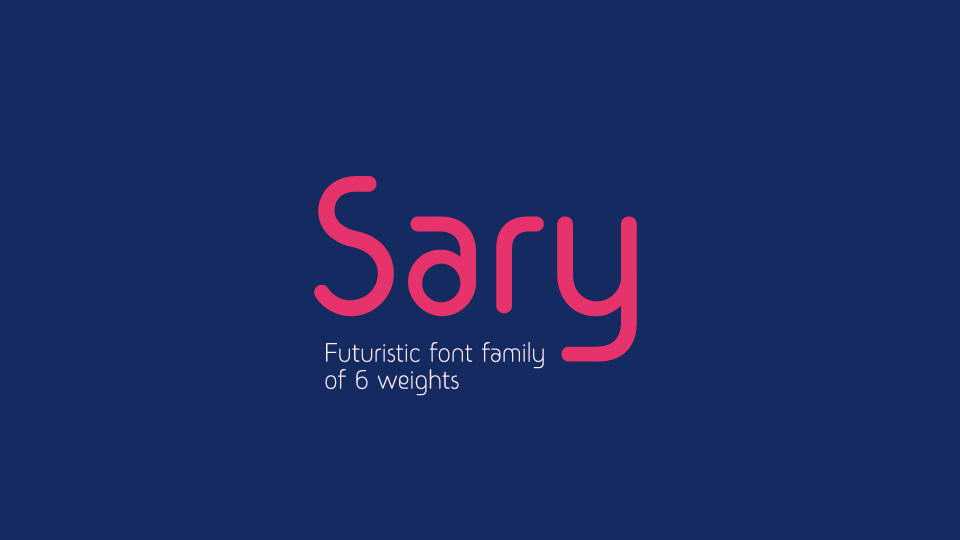
Sary Font Family › Fontesk – Download Grátis
Download Sary typeface, a soft futuristic font family in 5 weights. All characters of Sary are absolutely designed from perfect circles and straight lines.
Designer: Zain Mustafa